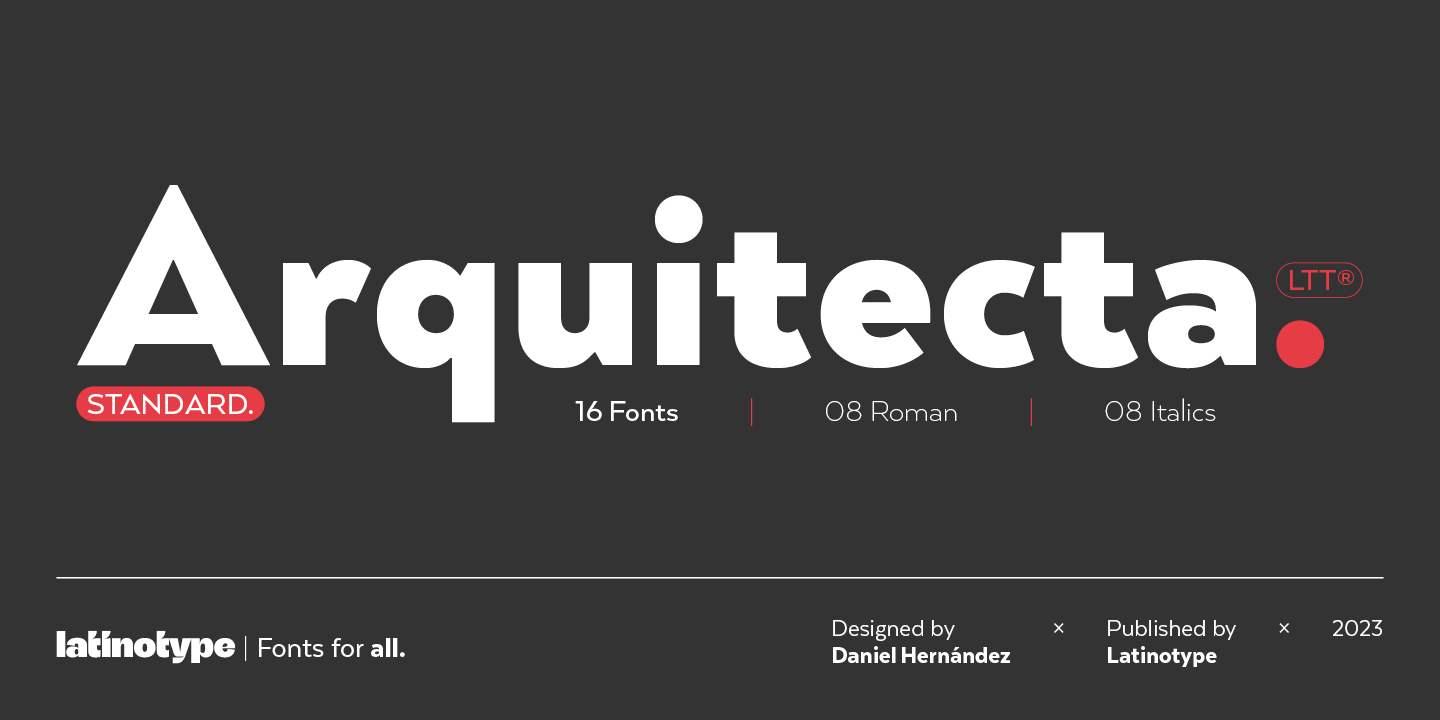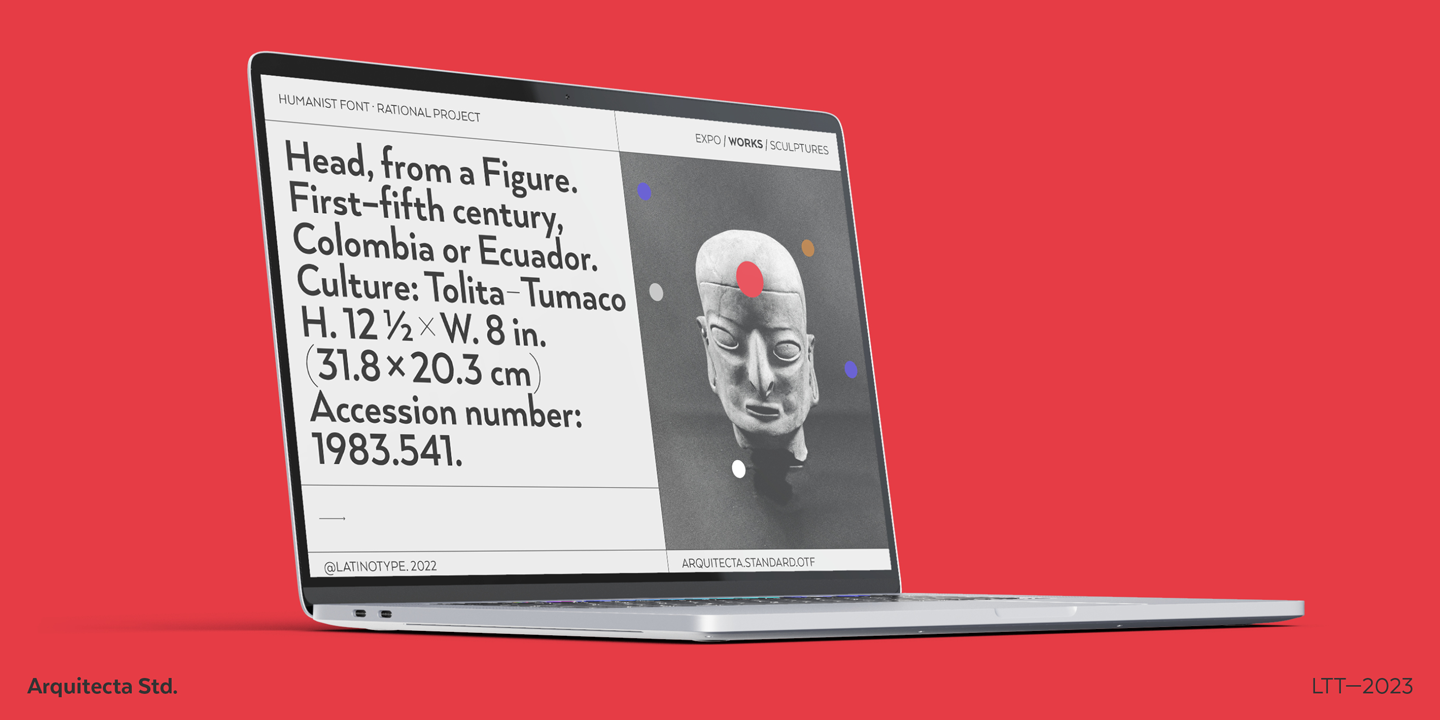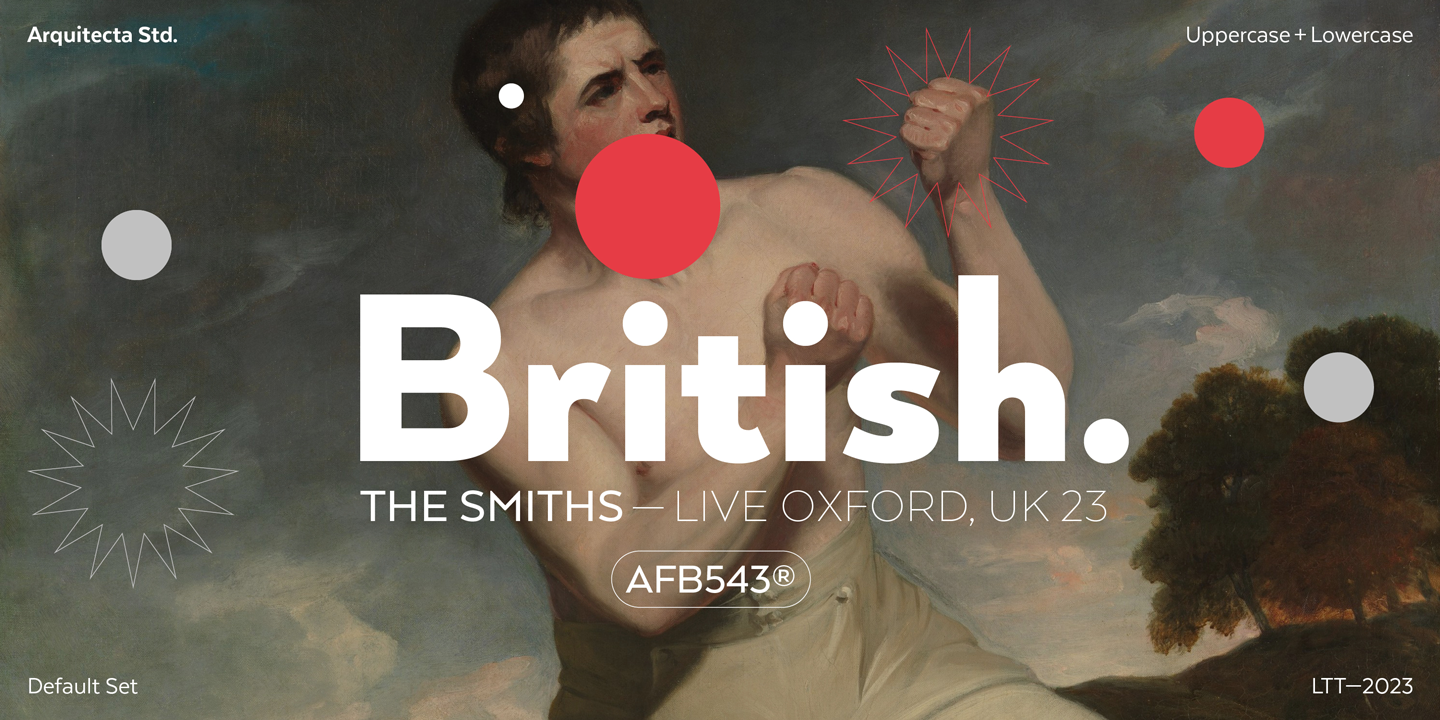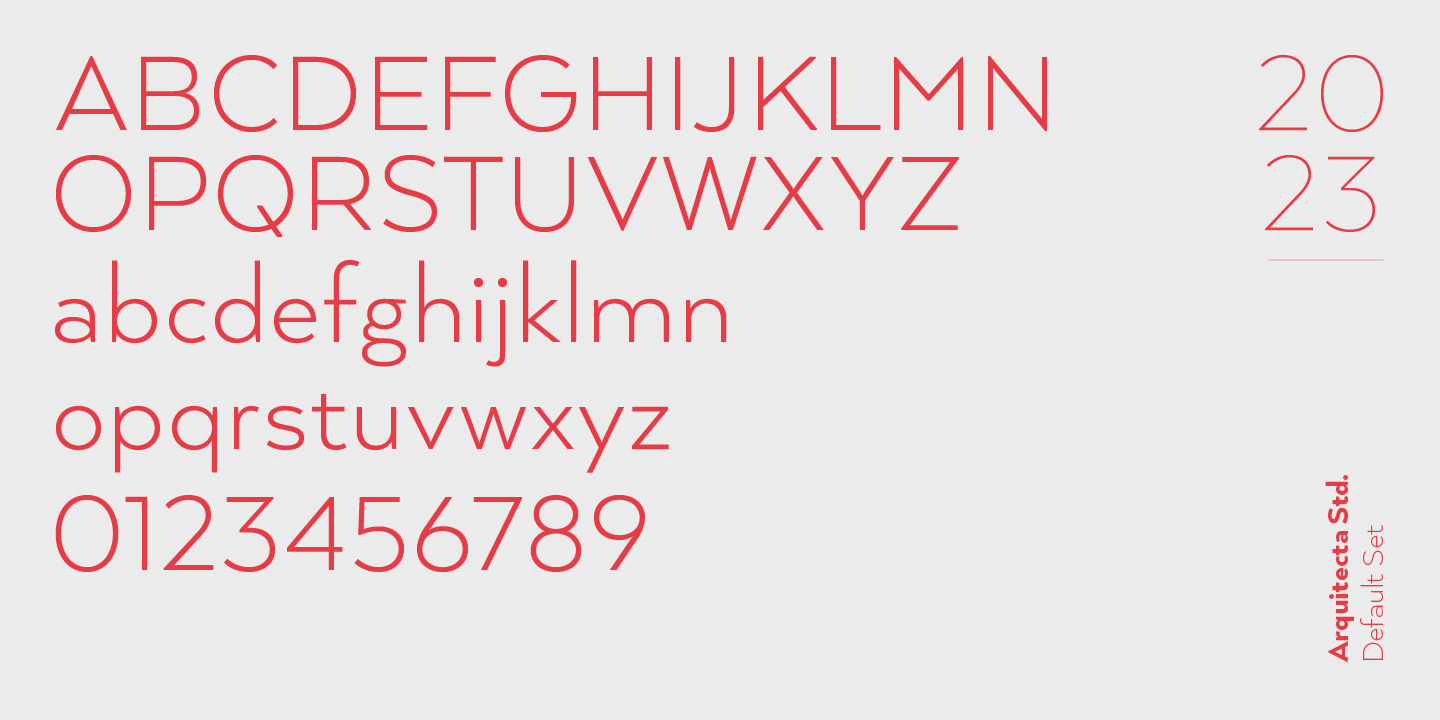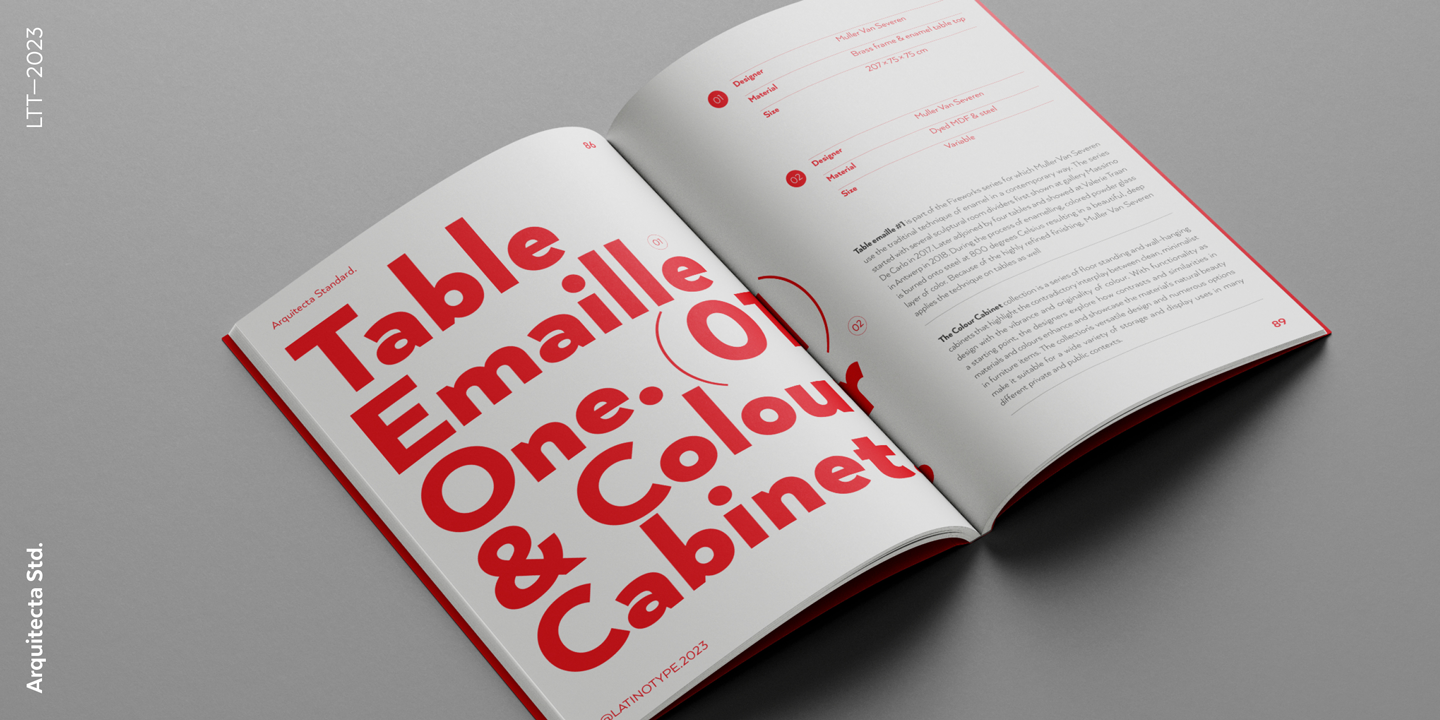
Arquitecta Standard Family (16 fonts)
Inspired by American & European hand lettering from the first half of the past century, Arquitecta finds his own space as a great alternative to the classics like Futura, Kabel or Avant Garde.
The family contains 8 upright romans and 8 italics with the following features:
- European accents.
- Ink traps to avoid press impressing spots & hinting optimized.
- Small X-height with accentuated ascenders and descenders.